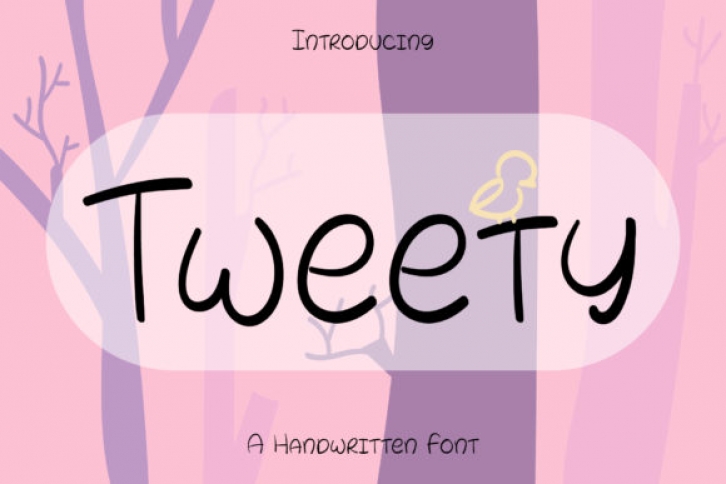
Tweety is a sweet and friendly handwritten font. Its natural and unique style makes it incredibly fitting for a large pool of designs. The only limit is your imagination!
Fall in love with its stylish look and elevate your designs to the highest level.